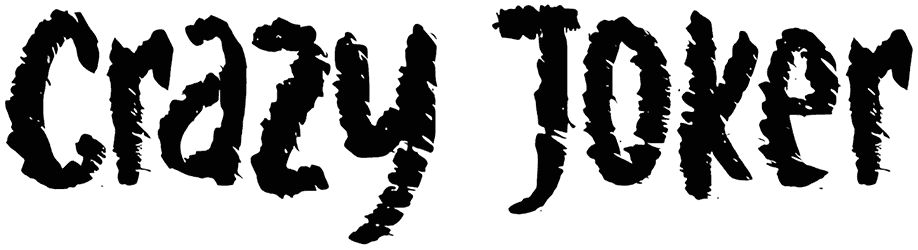
Crazy Joker Font
Some typefaces feel like they have a personality all their own, and Crazy Joker definitely does. With its exaggerated curves, unpredictable shapes, and playful energy, this font feels theatrical and a little mischievous, giving your headlines an expressive attitude that can’t be ignored.
This crazy font is the kind of typeface that brings character to carnival‑style posters, comic covers, party invitations, event branding, children’s entertainment graphics, and expressive social media content. Rather than aiming for subtlety, Crazy Joker embraces fun and unpredictability, helping your design smile before it’s even read. Sometimes the best typography isn’t the most restrained; it’s the one that gives a design life.